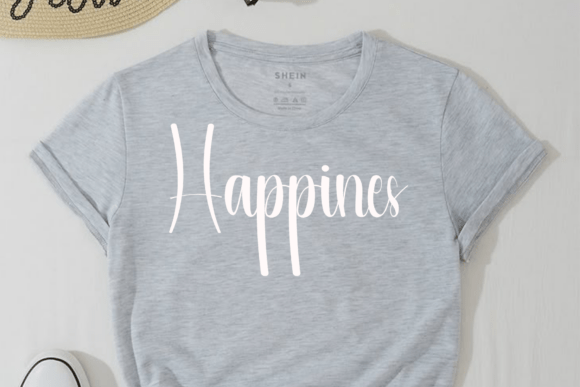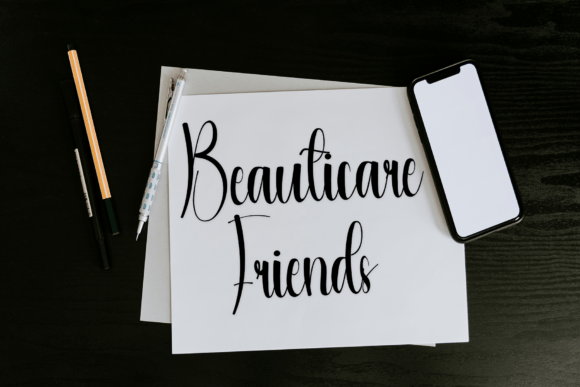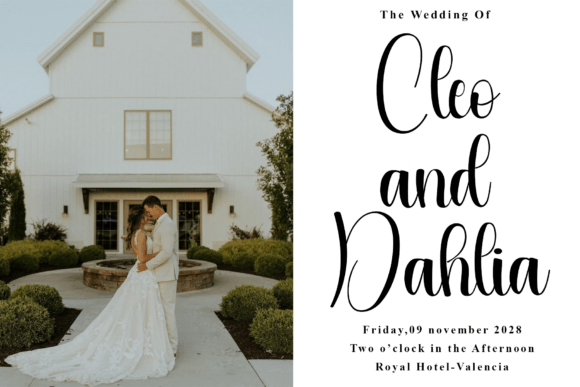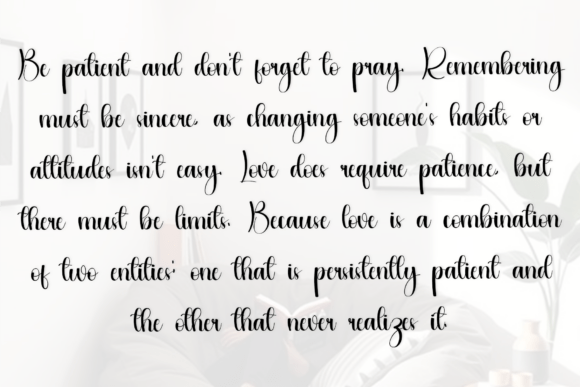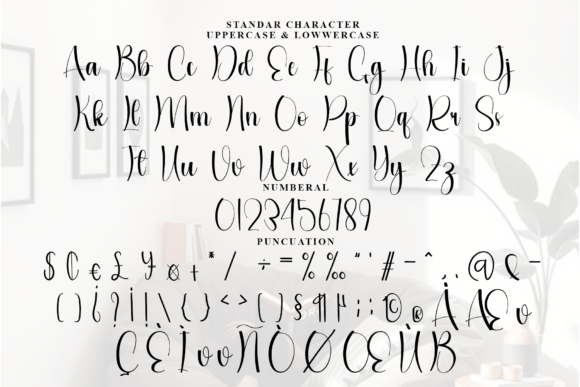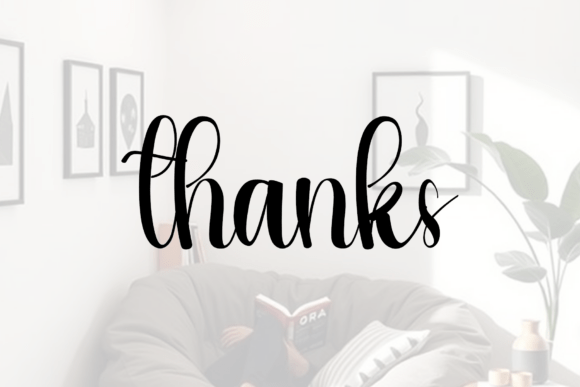
Introducing Aligment Font: Elevate Your Design with a Sophisticated Autumnal Script
Are you looking for a font that embodies the essence of autumn with a unique and professional visual voice? Look no further than Aligment Font, a sophisticated and rhythmic script font that is sure to elevate your design. As part of a modern handwritten collection, Aligment Font features high-contrast strokes with thick, grounded downstrokes and delicate hairline connectors, making it perfect for a variety of design applications.
Characteristics of Aligment Font
Aligment Font is characterized by its vertically elongated letterforms and graceful, looping ascenders that mimic high-end inkwork. The typeface features:
- High-contrast strokes: Thick, grounded downstrokes and delicate hairline connectors create a sense of elegance and sophistication.
- Vertically elongated letterforms: Adding a touch of refinement and luxury to your design.
- Graceful, looping ascenders: Mimicking high-end inkwork, these ascenders add a level of craftsmanship to your design.
Perfect for Autumn Marketing and More
Aligment Font is a premier asset for seasonal autumn marketing, artisanal food packaging, boutique event invitations, and sophisticated editorial headers. Its unique and professional visual voice makes it perfect for:
- Autumn marketing campaigns: Add a touch of warmth and sophistication to your branding and advertising.
- Artisanal food packaging: Elevate your packaging design with a font that exudes luxury and refinement.
- Boutique event invitations: Make a lasting impression with elegant and sophisticated invitations.
- Sophisticated editorial headers: Add a touch of elegance to your editorial design with Aligment Font.
Why Choose Aligment Font?
With Aligment Font, you can:
- Stand out from the crowd: With its unique and professional visual voice, Aligment Font is sure to make your design stand out.
- Add a touch of sophistication: Perfect for designers and crafters who want to add a level of elegance to their design.
- Elevate your brand: Use Aligment Font to create a cohesive and sophisticated brand identity.
Tips for Using Aligment Font
Here are some tips for getting the most out of Aligment Font:
- Use it sparingly: Aligment Font is perfect for headlines and titles, but use it sparingly to avoid overwhelming your design.
- Pair it with a sans-serif font: Pair Aligment Font with a sans-serif font for a striking contrast.
- Experiment with colors: Try pairing Aligment Font with warm, autumnal colors to really make it pop.
Aligment Font is a sophisticated and rhythmic script font that is sure to elevate your design. With its unique and professional visual voice, high-contrast strokes, and elegant letterforms, it’s perfect for a variety of design applications. Whether you’re a designer or crafter, Aligment Font is a premier asset that is sure to make your design stand out.